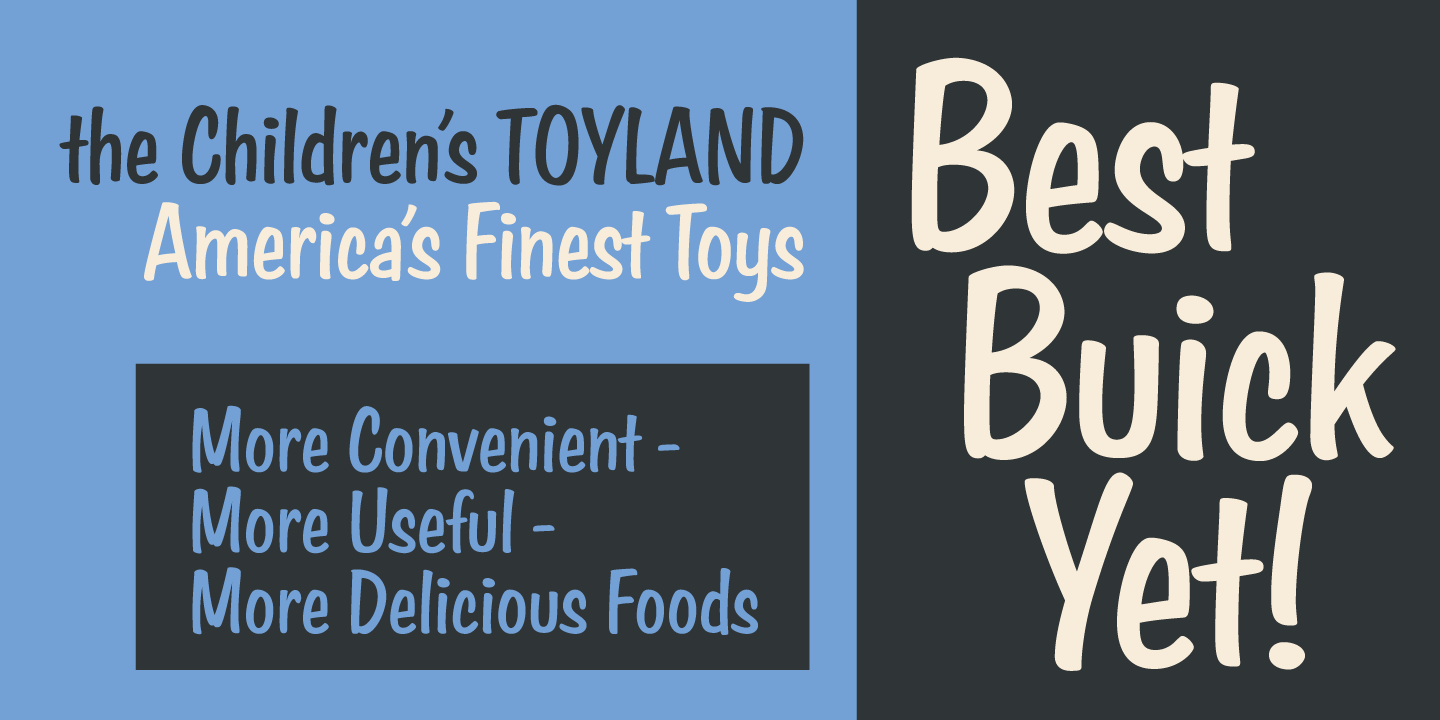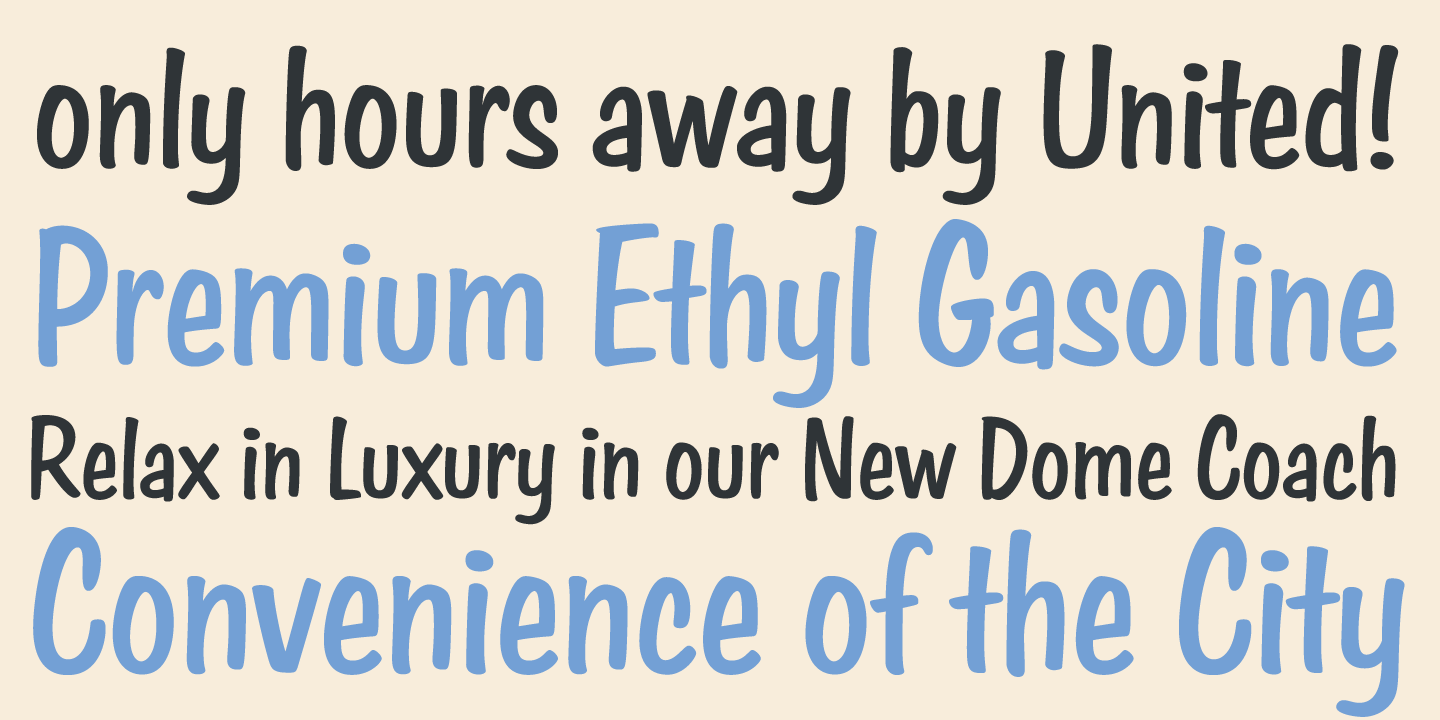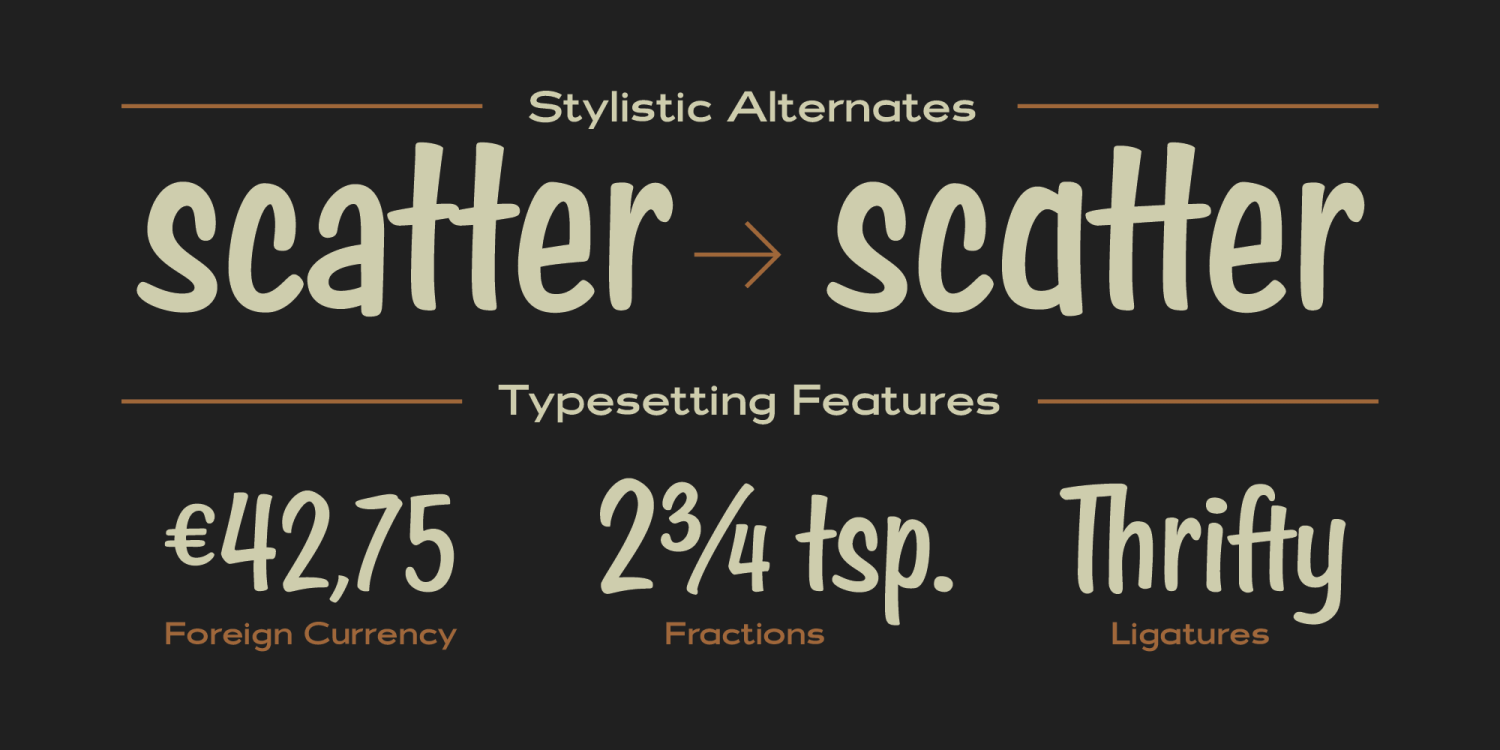
About Filmotype Andrew
At it's customers request, Filmotype developed custom font weights and widths of its library throughout its history. Fimotype Andrew honors that same tradition as it was derived from Filmotype Athens, a condensed upright lightweight pen lettered script…